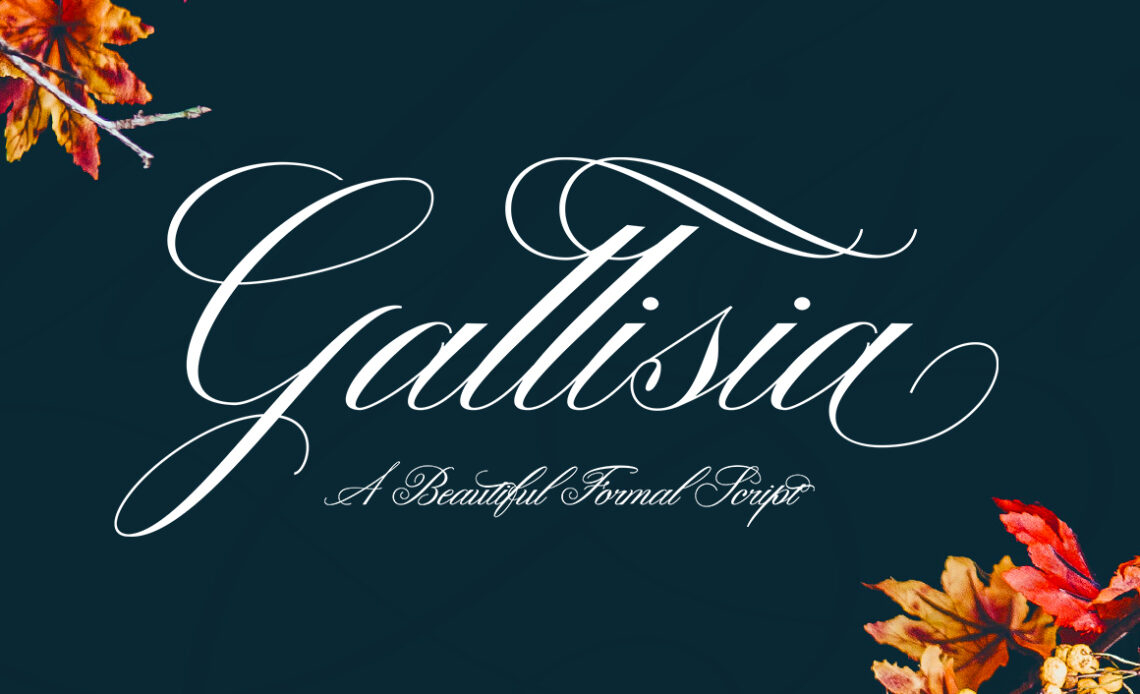
Introducing Gallisia Script, a font of elegance and sophistication, a tribute to the allure of timeless calligraphy. Crafted by the renowned Picatype Studio, this script font exudes a charm that captivates and enchants.
With its intricate strokes and delicate flourishes, Gallisia Script dances across your designs like a graceful ballerina, transforming words into works of art. Its formal aesthetic imparts a sense of sophistication, making it the perfect choice for invitations, wedding stationery, greeting cards, and branding projects that demand an air of refined beauty.
Whether you're a graphic designer seeking to elevate your projects or an individual seeking to add a touch of class to your personal communications, Gallisia Script stands ready to fulfill your creative vision. Unleash your imagination and allow this font to guide you through a journey of elegance and inspiration.
But Gallisia Script is more than just a font; it's an experience. Immerse yourself in its beauty and allow your creativity to soar. Discover the joy of crafting designs that exude timeless elegance, designs that speak to the heart and leave a lasting impression.
Don't settle for ordinary fonts. Embrace the allure of Gallisia Script and unlock a world of creative possibilities. Let your designs blossom with sophistication and grace, and experience the transformative power of truly exceptional typography.